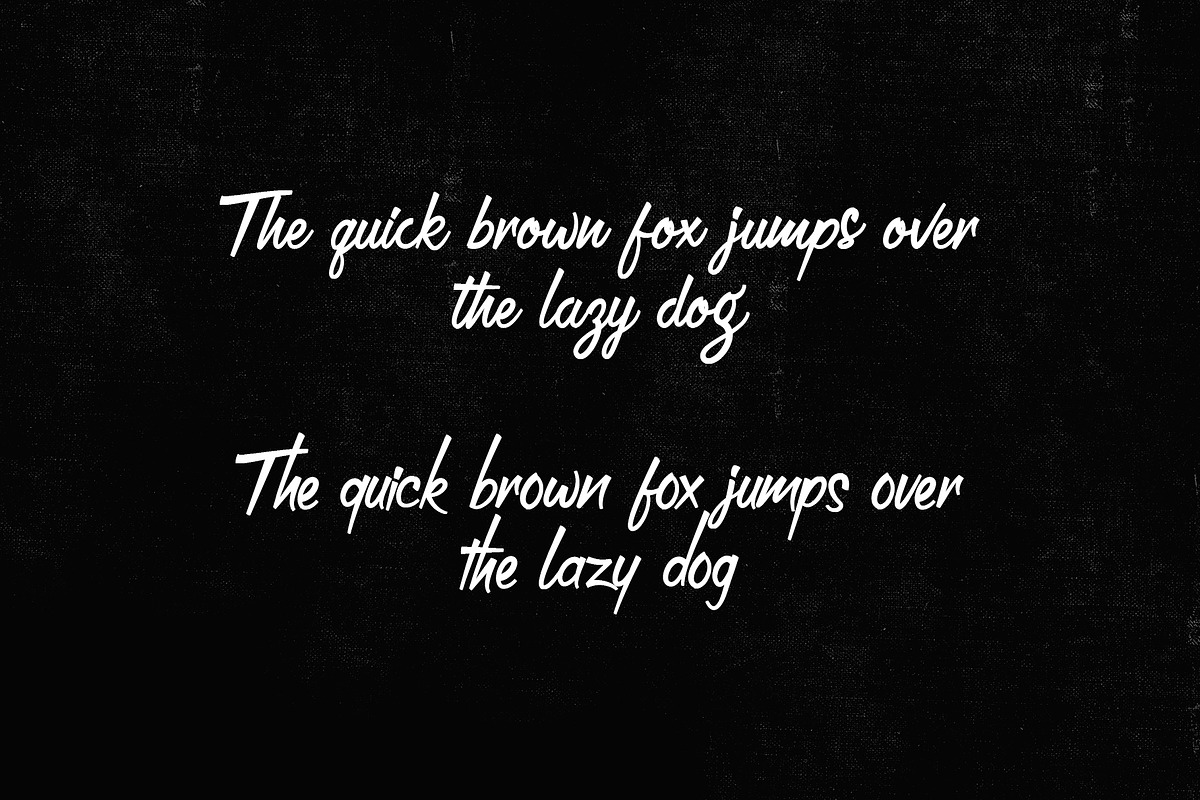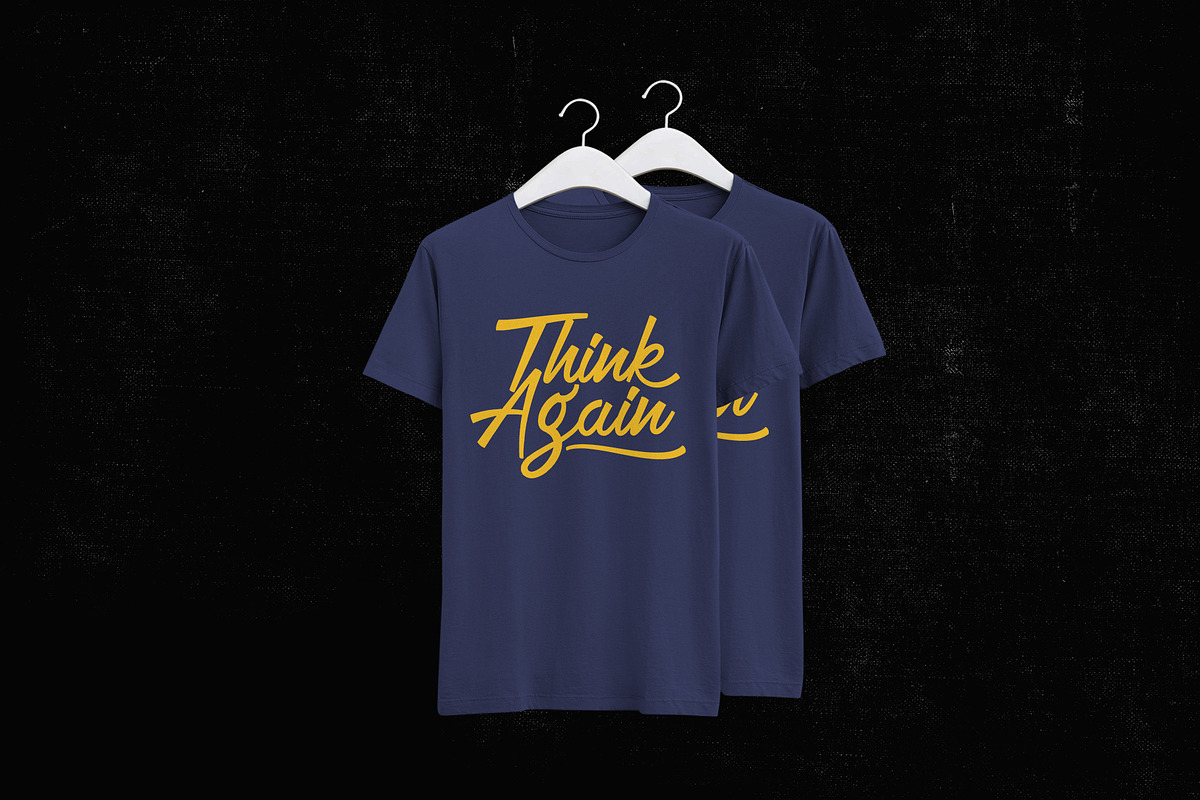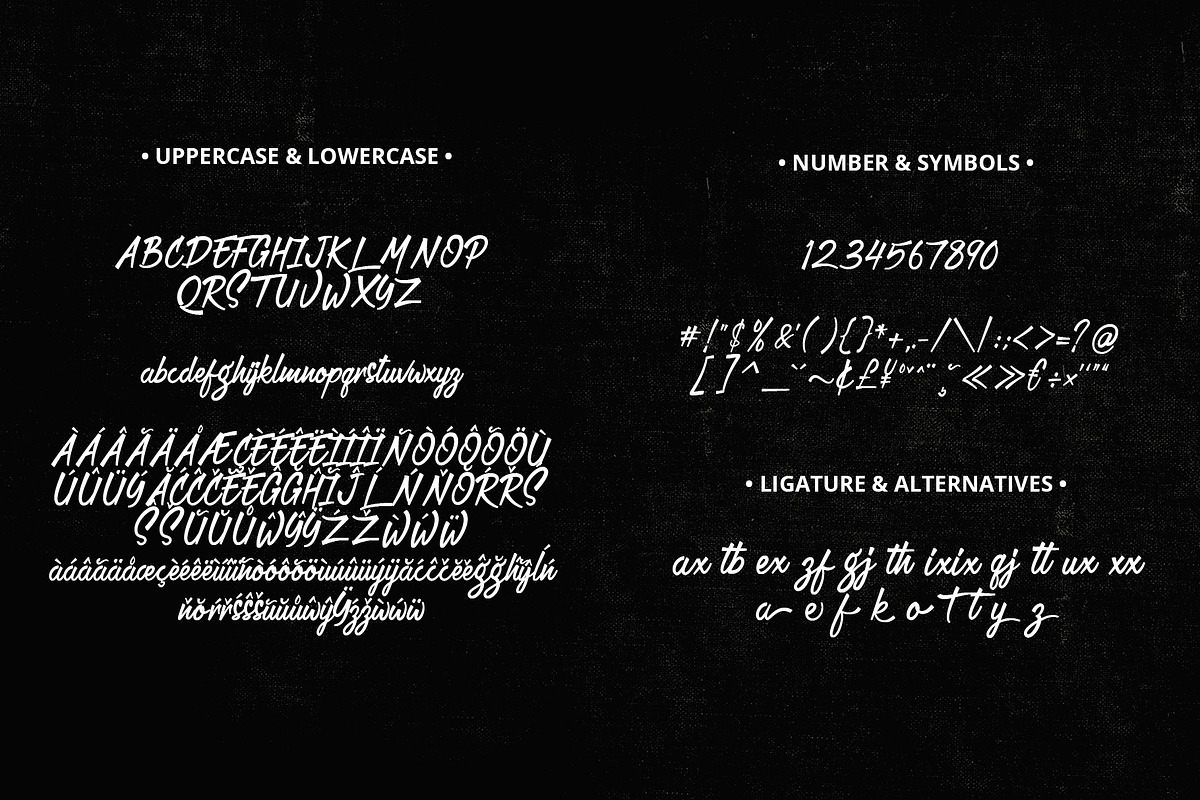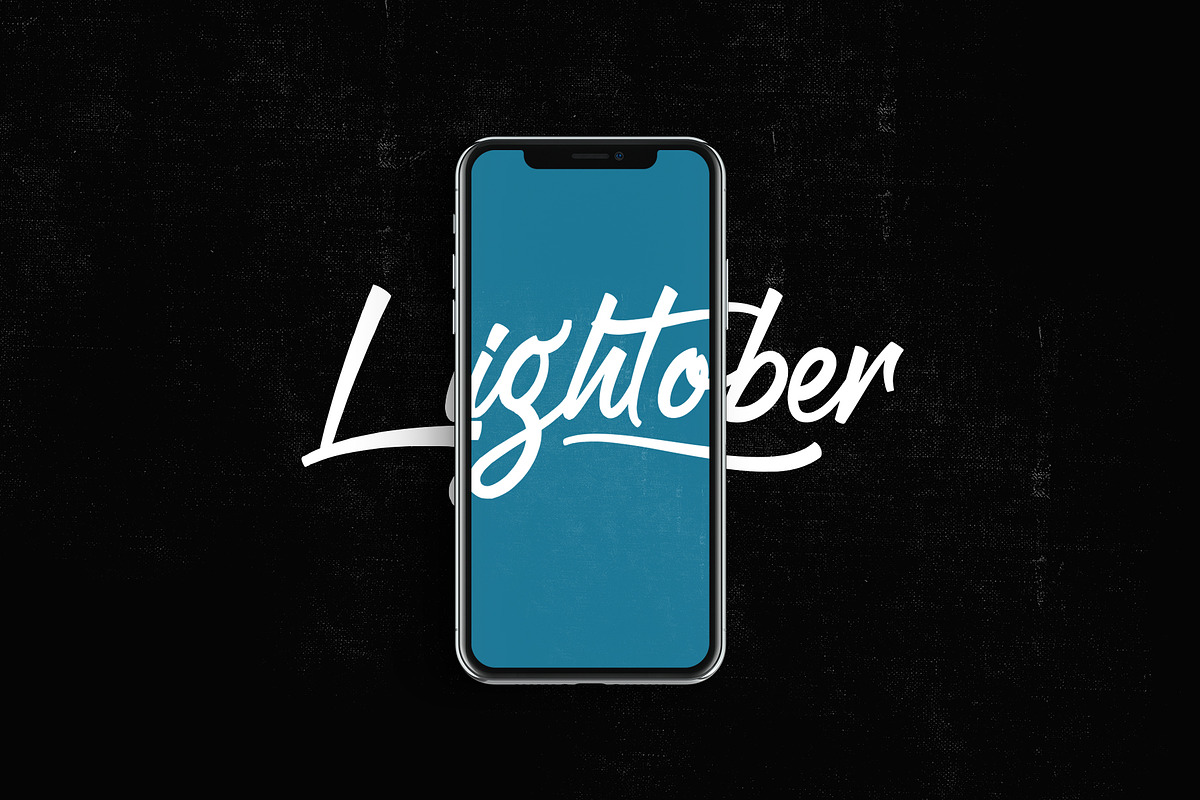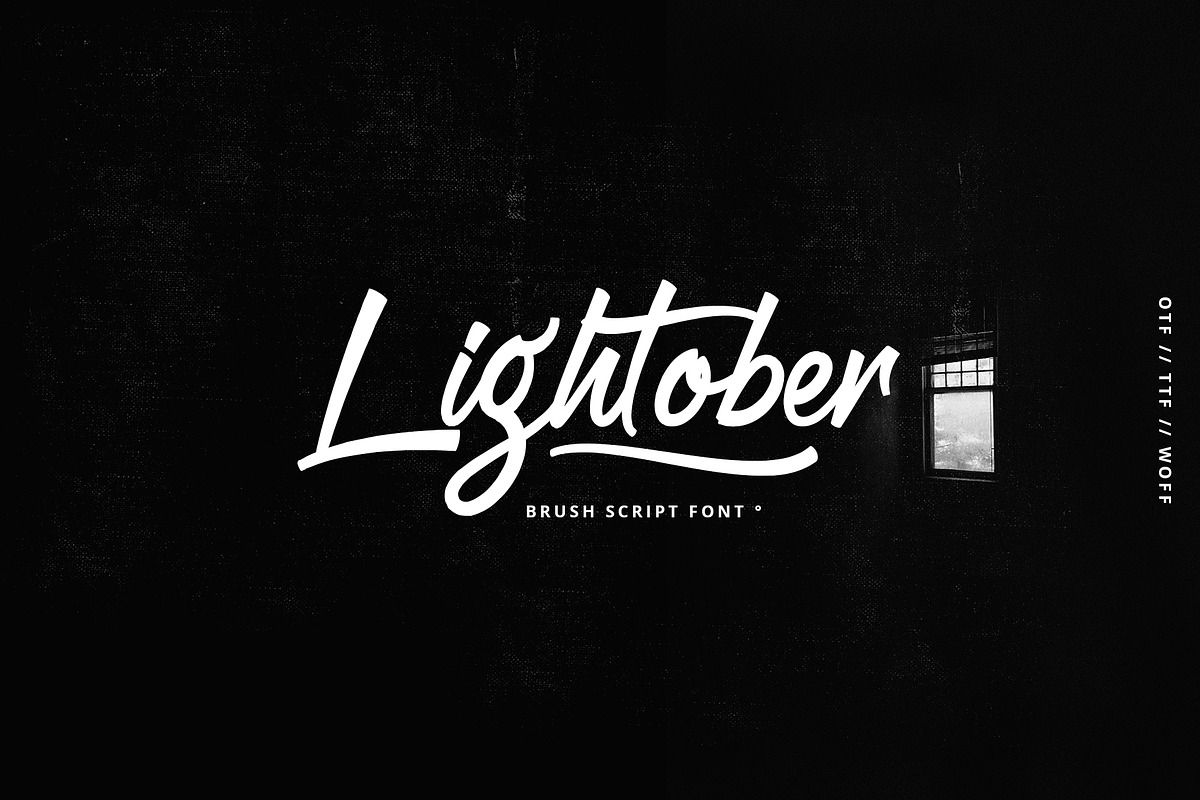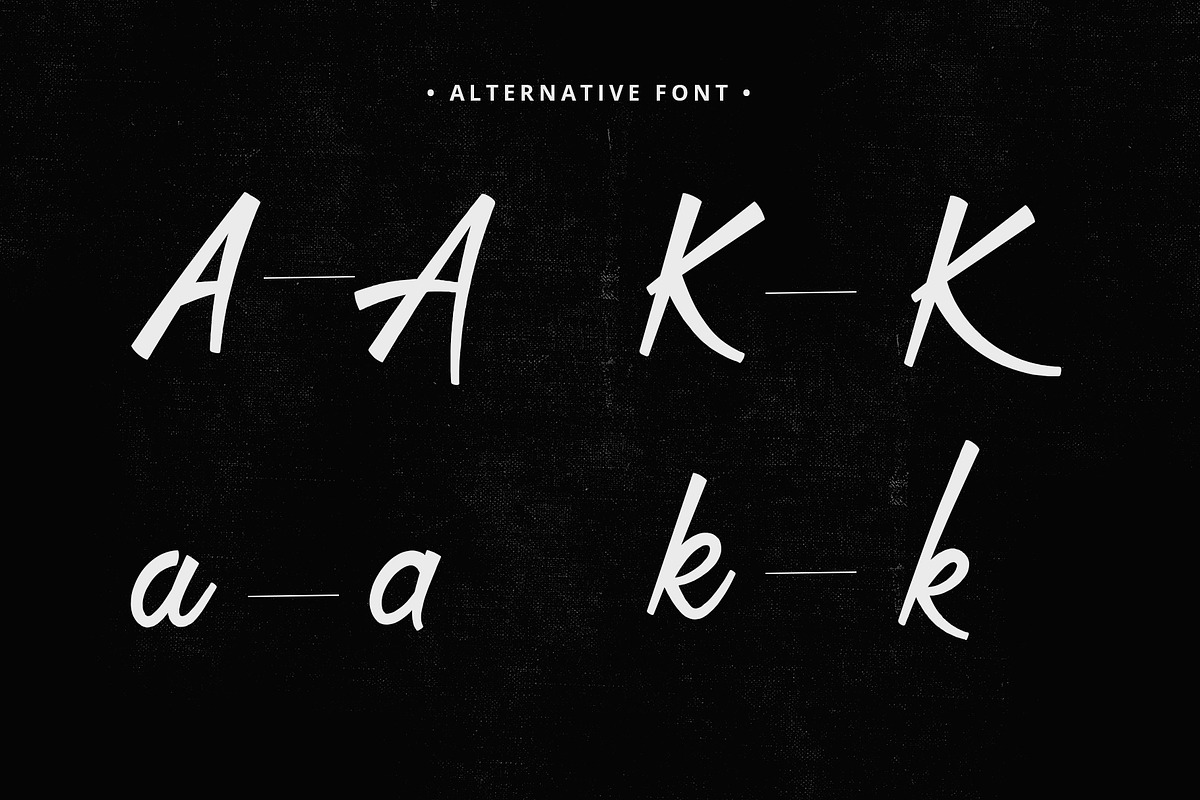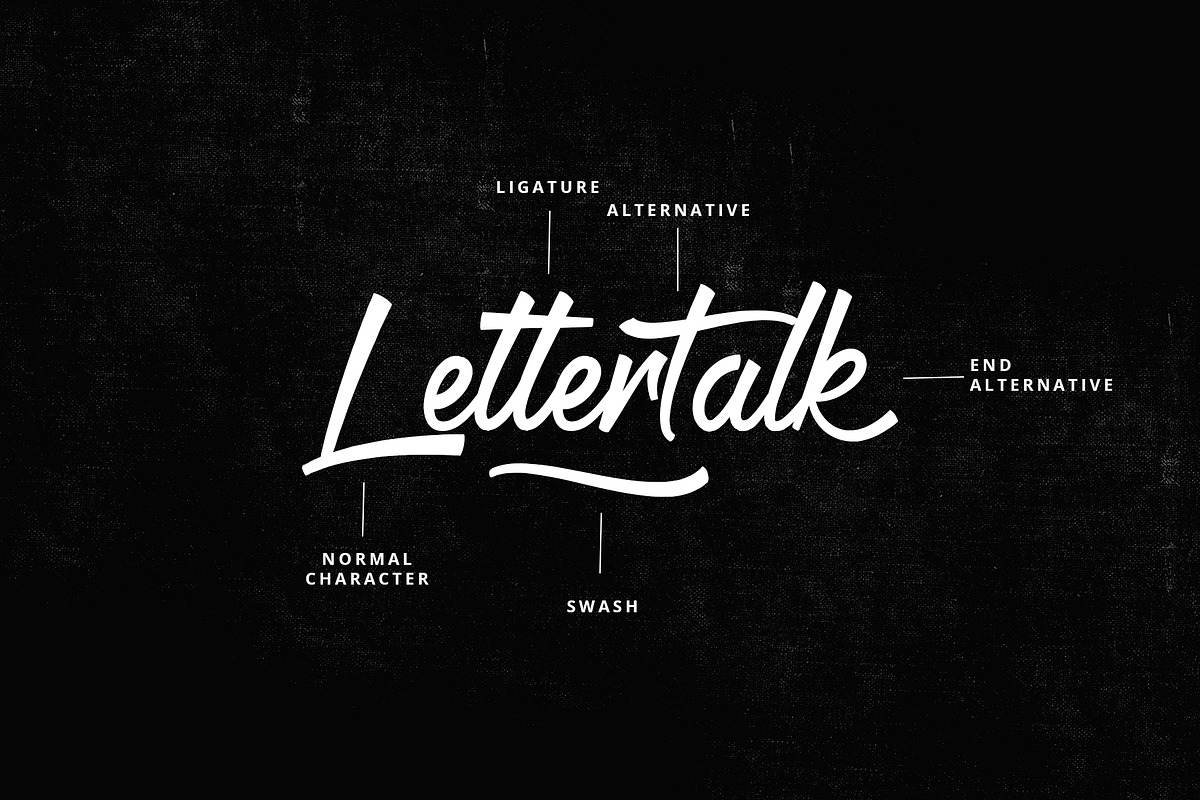
Lightober font
Lightober is a font that is suitable for logos, posters, flyers, cards and others , this font consists of 2 fonts and swash . Each font has: uppercase, lowercase, ligature, alternative, multilingual, etc.
Why Lightober font is worth a look
Lightober font by Emyself Design fits naturally into Branding, posters, packaging, typography.